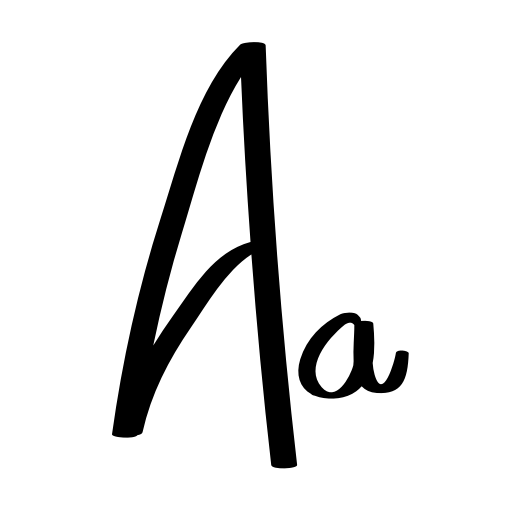
Belatoni is a playful, handwritten script font with a lively and organic feel, characterized by its tall, narrow letterforms and smooth, flowing strokes. Its casual style and distinctive quirky shapes make it perfect for creative branding, invitations, and projects aiming for a personal, friendly touch. This font works well in headlines, logos, and packaging where a unique, approachable personality is desired.
Belatoni Font